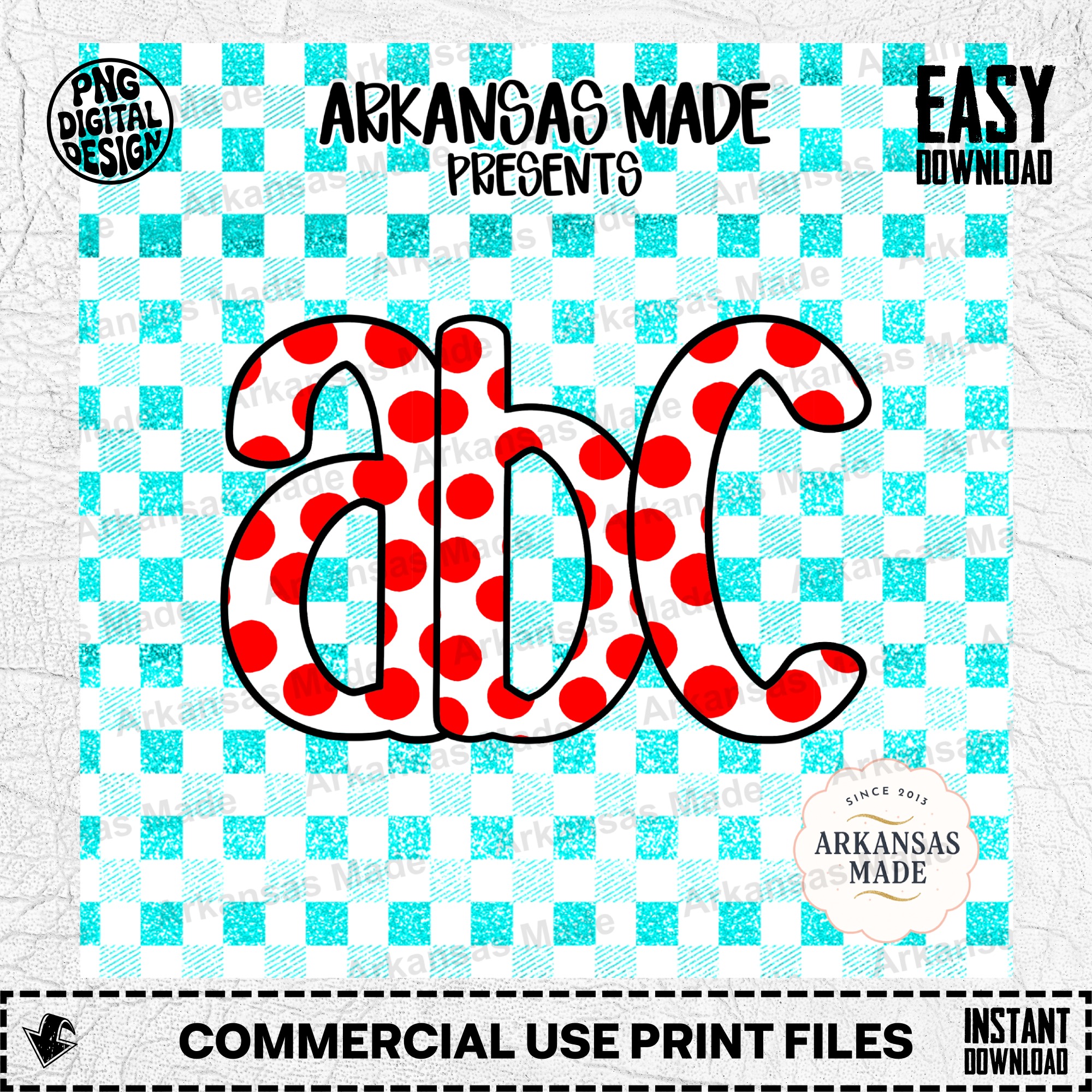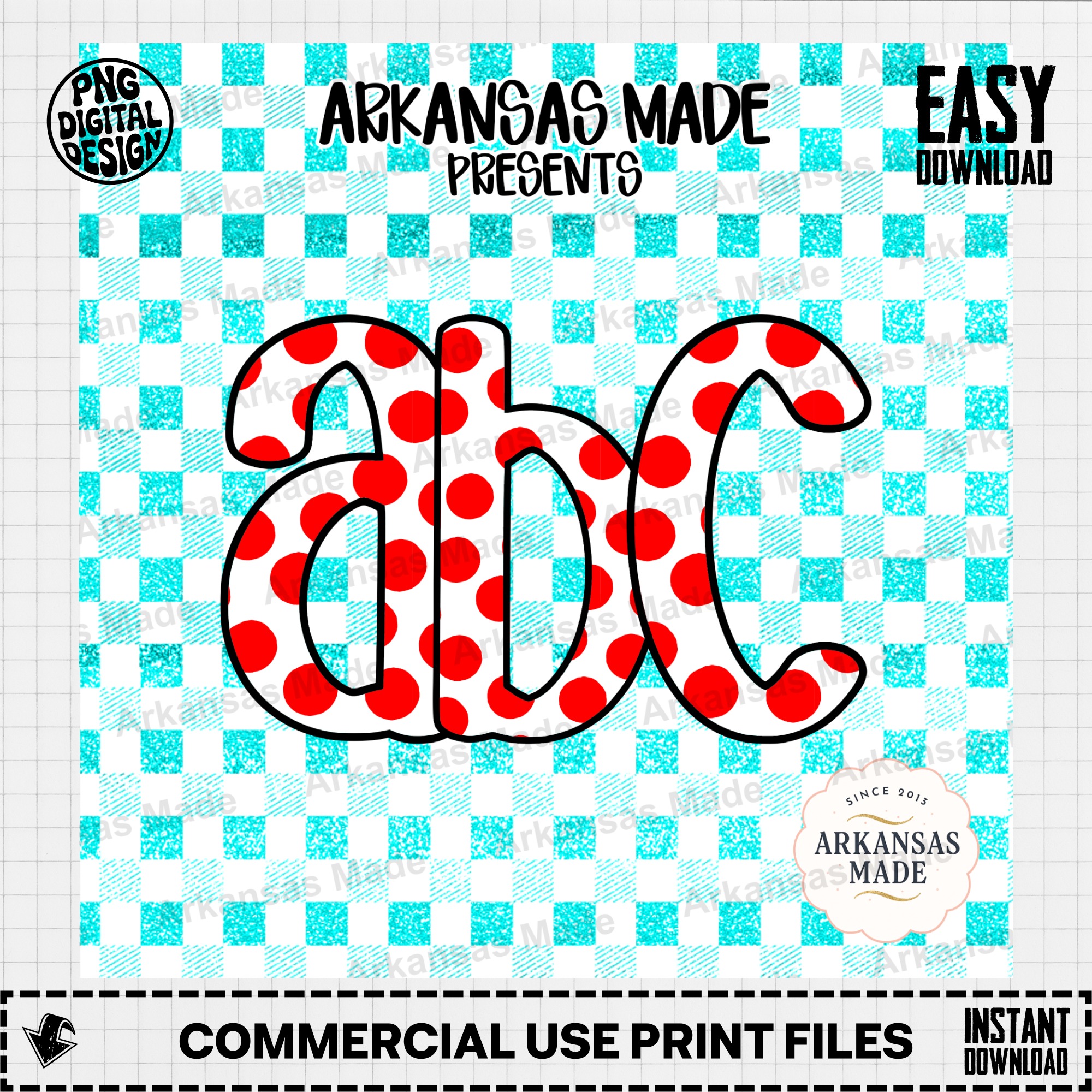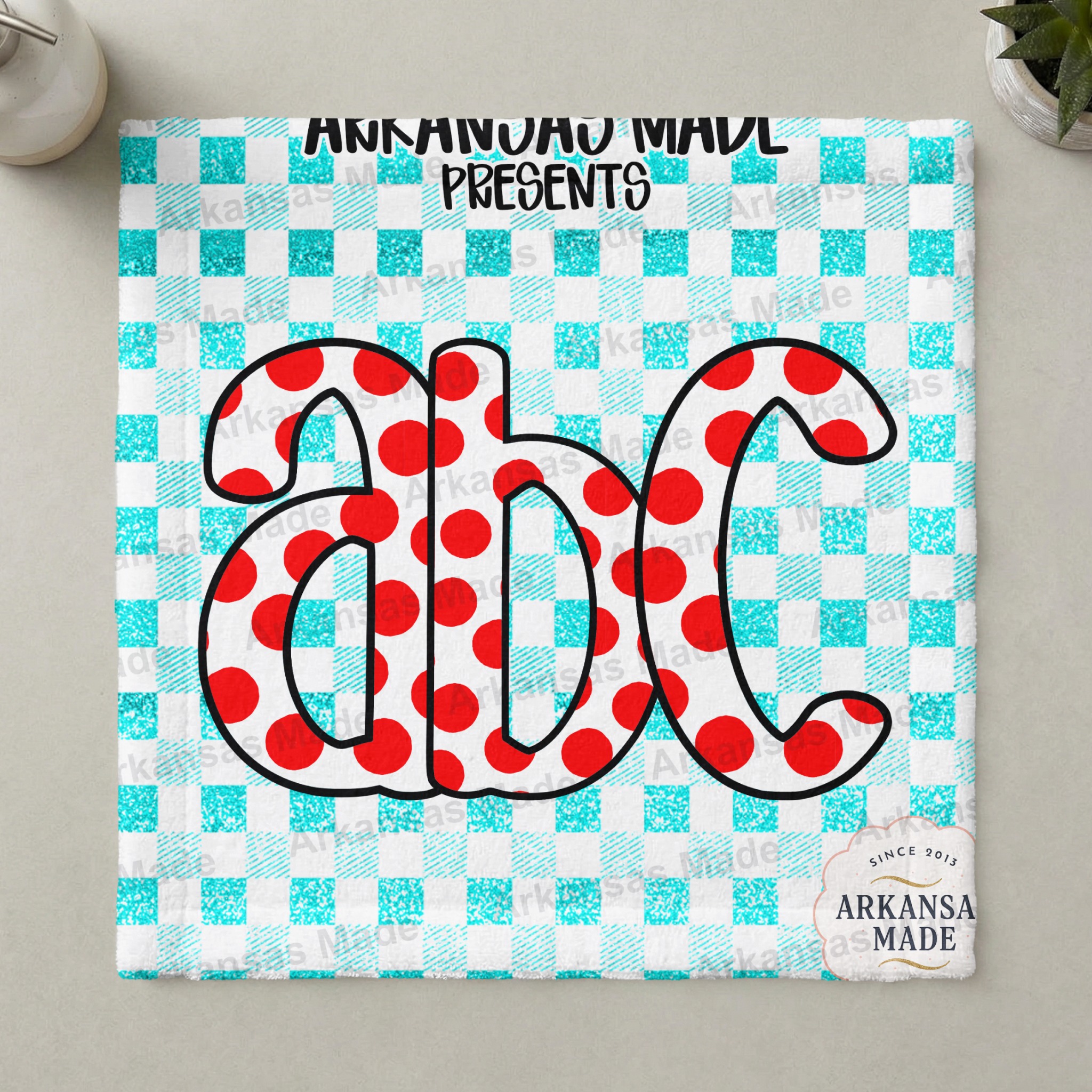
Digital Download Alphabet Set, Red Polka Dot ABC Letters, Faux Teal Glitter Gingham Font, Sublimation Clipart Nursery Decor
Vibrant Digital Download Alphabet Set featuring playful red polka dot letters and a faux teal glitter gingham background, perfect for your creative projects! This cheerful ABC clipart offers a whimsical touch for nursery decor, unique sublimation designs, scrapbooking, or custom party invitations. Ideal for crafters, parents, and small business owners seeking a fun, preppy aesthetic for their digital creations. Elevate your designs with these eye-catching printable letters and patterns.